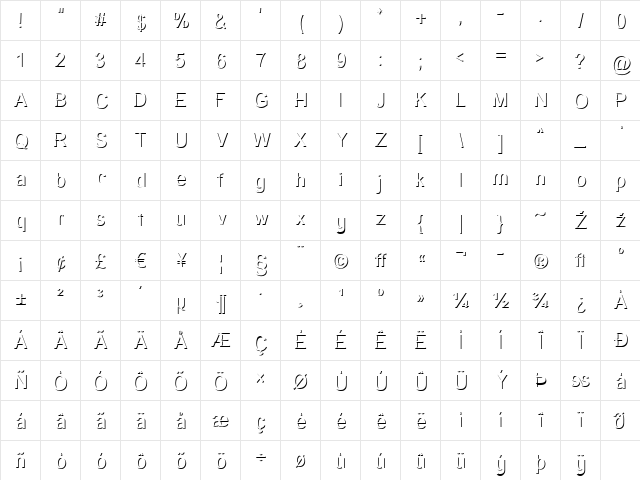
Primary Elector Platinum Regular
| Designer | Graham Meade |
Design Context for Primary Elector Platinum Typeface
Primary Elector Platinum takes a measured approach to typography — its balanced proportions and neutral character make it a reliable workhorse for both digital and print work.